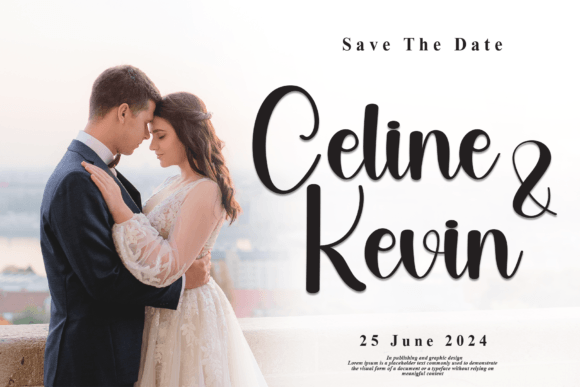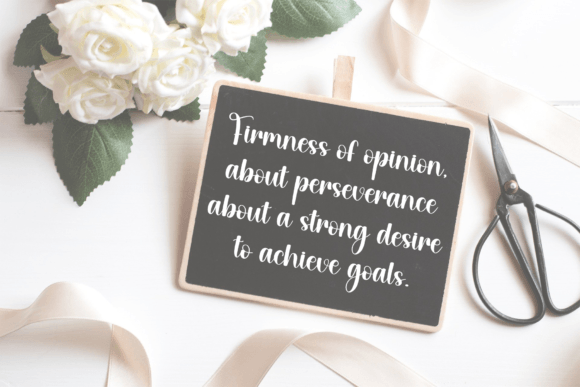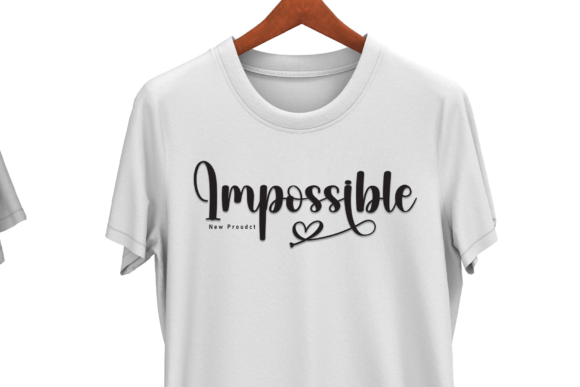
Introduction to Muthia Font
Muthia is a sweet and friendly handwritten font.
Key Features of Muthia Font
Why Choose Muthia Font?
Muthia Font offers exceptional quality and versatility, making it a valuable addition to your design toolkit. Whether you’re creating for personal projects or commercial use, Muthia Font delivers professional results.